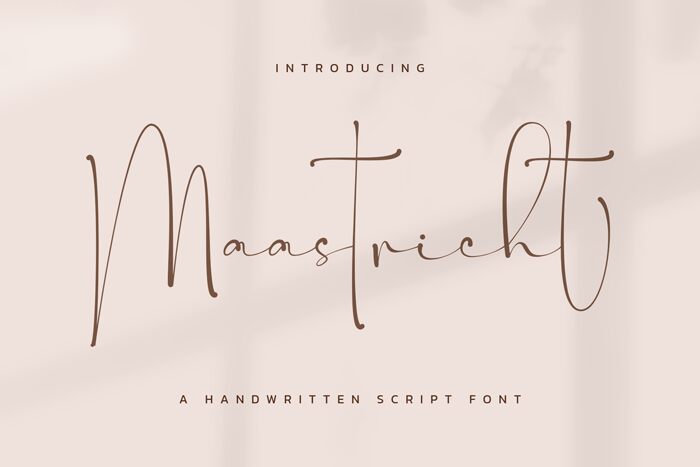
Maastricht, a captivating handwritten signature font crafted by Hoperative, exudes a sense of effortless elegance and personalized charm. Its light weight and expressive, flowing strokes create a distinct, organic impression that evokes a sense of authenticity and individuality. The font's unique blend of refined curves and subtle imperfections lends it a distinctive, handcrafted aesthetic, making it a compelling choice for projects seeking a touch of genuine, heartfelt personality.
This versatile font lends itself well to a variety of design applications, from elegant wedding stationery and personalized branding to editorial layouts and social media content. Its natural, calligraphic qualities make it an excellent selection for projects that aim to convey a sense of warmth, intimacy, and personalization, allowing for a seamless integration of a human touch within the digital landscape.